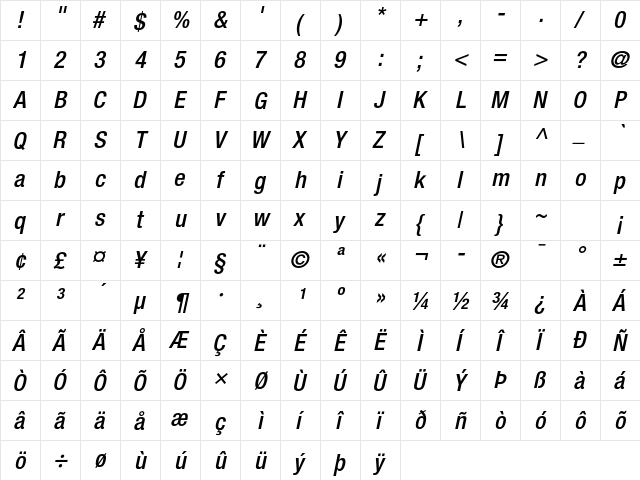
Helvetica Neue LT Pro 67 Medium Condensed Oblique Font Preview
| Style | 67 Medium Condensed Oblique |
| Foundry | Linotype Library GmbH |
| Designer | Linotype Library GmbH |
Design Context for Helvetica Neue LT Pro Typeface
Helvetica Neue LT Pro offers clean, dependable letterforms without strong stylistic allegiance, making it a practical choice for designers who need flexibility. Its italic angle brings a sense of urgency and motion to the letterforms. Its slender proportions lend an understated elegance to any composition. The condensed width makes it efficient for tight spaces without sacrificing legibility.
Pro Tip: Try Helvetica Neue LT Pro for annotation and caption copy alongside an upright companion — the contrast in angle creates a dynamic but ordered typographic system.